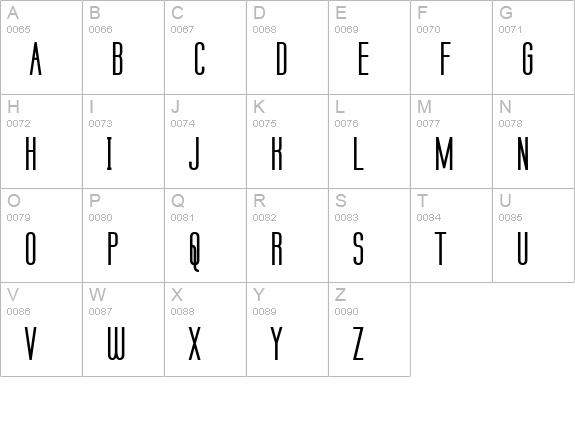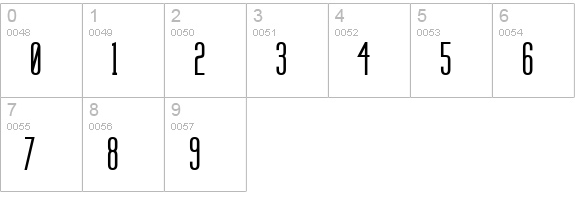
Labtop Unicase Bold is a strong, high-contrast variant in the Labtop typeface family \xE2\x80\x94 well suited to headlines, attention-grabbing titles, and strong calls-to-action.
Labtop Unicase Bold font is a modern and eye-catching typeface that exudes confidence and style. With its bold and sturdy letterforms, this font is perfect for making a statement in headlines, titles, and branding materials. The clean lines and unique design elements of Labtop Unicase Bold make it stand out from the crowd, adding a touch of sophistication to any project. The best part? Labtop Unicase Bold font is available for free download at FontsMarket.com. Whether you're a designer looking to add a new font to your collection or a business owner wanting to freshen up your branding, this font is a versatile choice that won't break the bank. Download Labtop Unicase Bold today and elevate your design projects with its modern and impactful style.